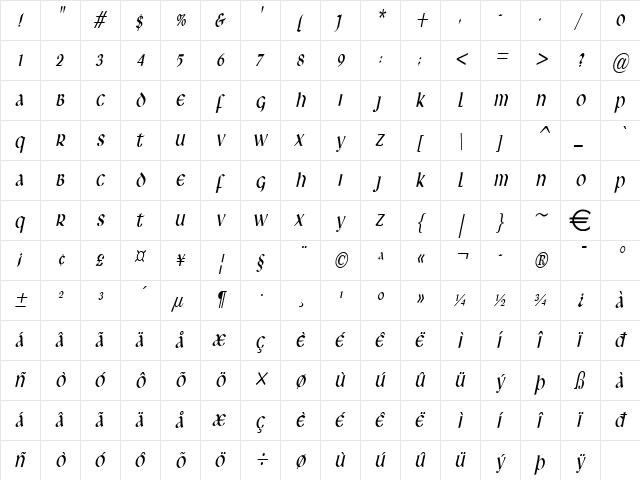
LeoThin Italic
Design Context for LeoThin Typeface
LeoThin offers clean, dependable letterforms without strong stylistic allegiance, making it a practical choice for designers who need flexibility. The slanted form adds forward momentum and visual energy. Its slender proportions lend an understated elegance to any composition.
Pro Tip: Use LeoThin for emphasis, pull quotes, and subheadings where its slanted energy can add rhythm to the layout.